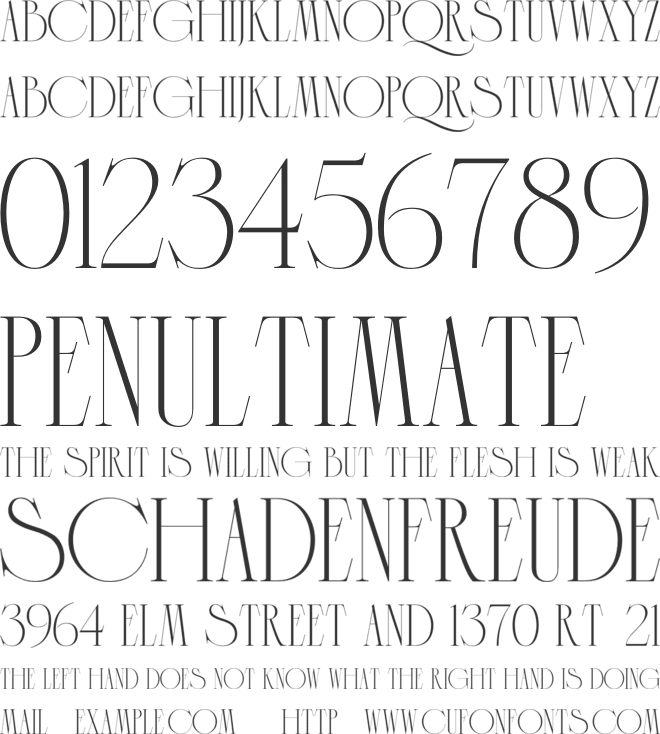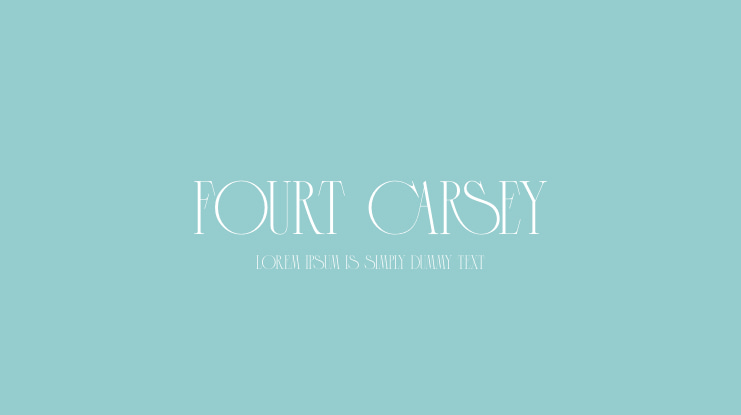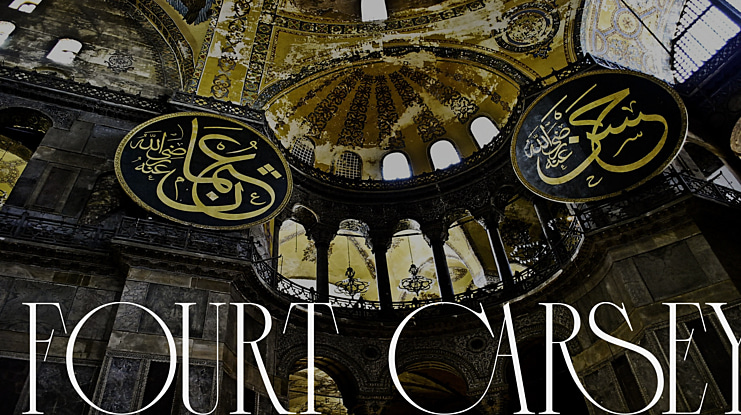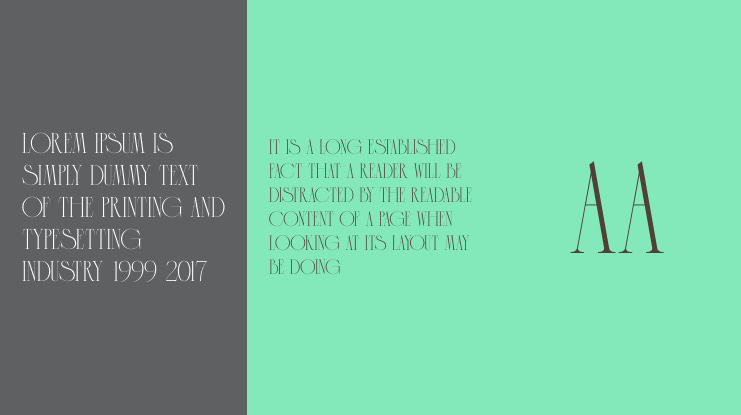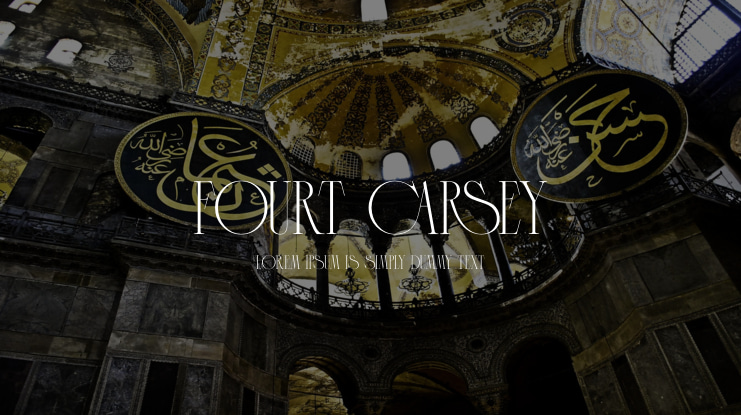
Fourt Carsey Font
Introducing, Fourt Carsey Typeface. Fourt Carsey is an elegant and modern font that take classy and fashionable touch family typeface.
Fourt Carsey Typeface is perfectly suitable for layout design for quotes or body copy, best used as a display for headings, logos, branding, magazines, product packaging, invitations. logotypes, and much more. Don't wait to add this luxury font family to your collection and explore the uniqueness of this typeface!